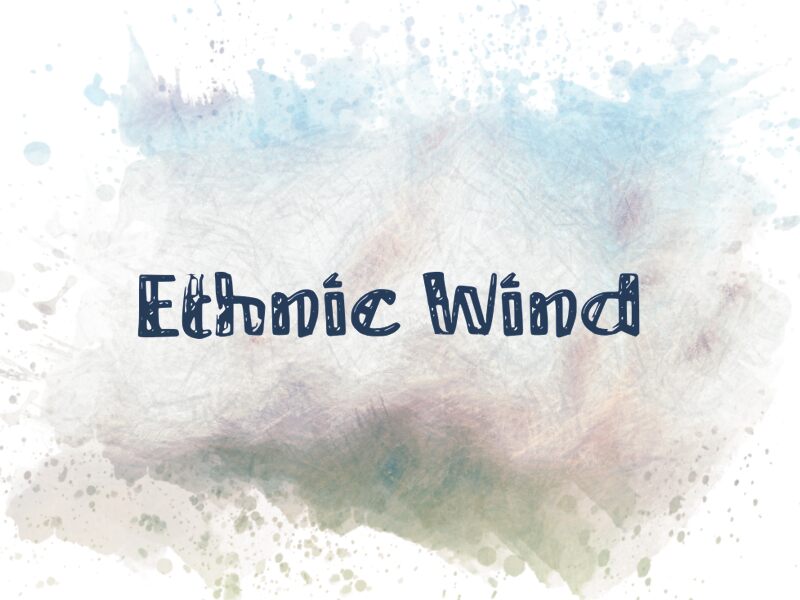
Ethnic Wind
Ethnic Wind, a bold and captivating display font designed by wep, brings a touch of cultural vibrance to any project. With its decorative style and semi-expanded width, this font is perfect for creating eye-catching headlines, posters, and invitations that demand attention. Its unique character will add an exotic flair to travel brochures, artisanal branding, and festival promotions alike. Let Ethnic Wind carry your message with confidence as it effortlessly combines the allure of boldness with the artistry of decorative typography.